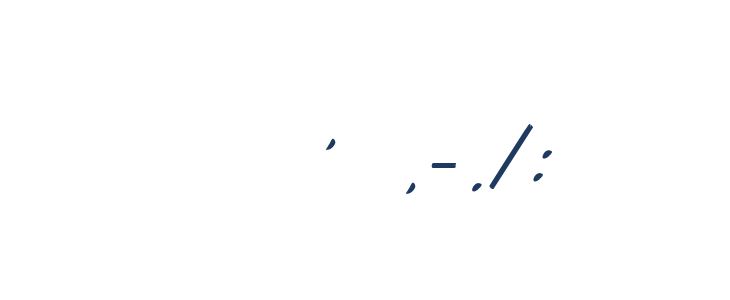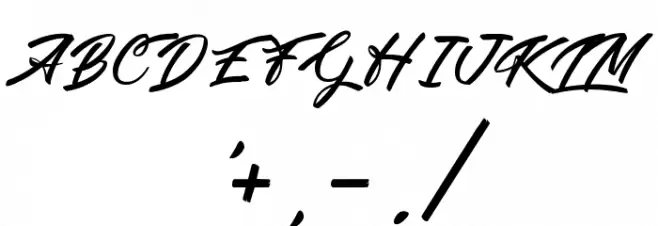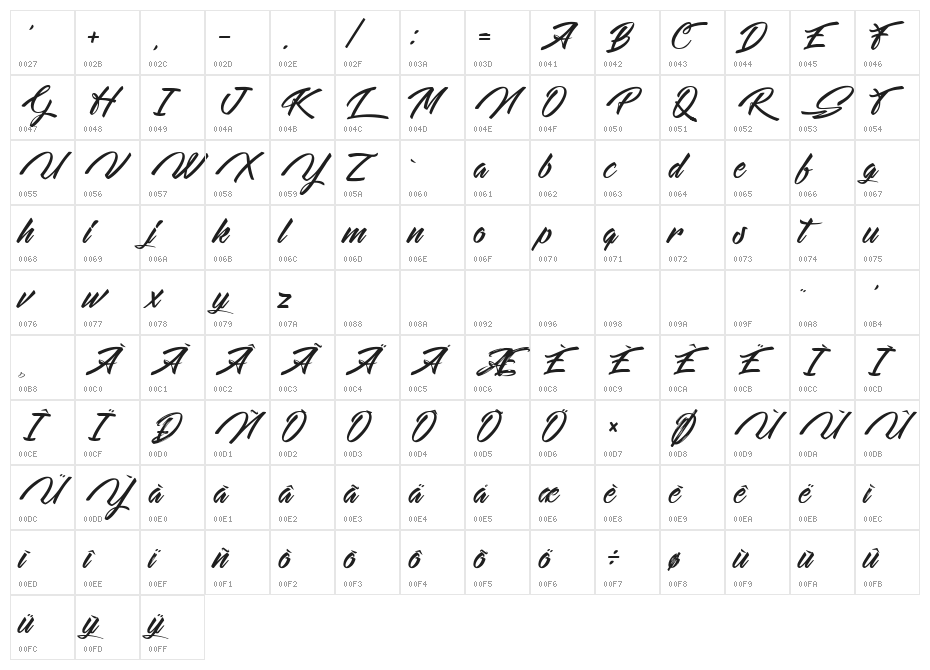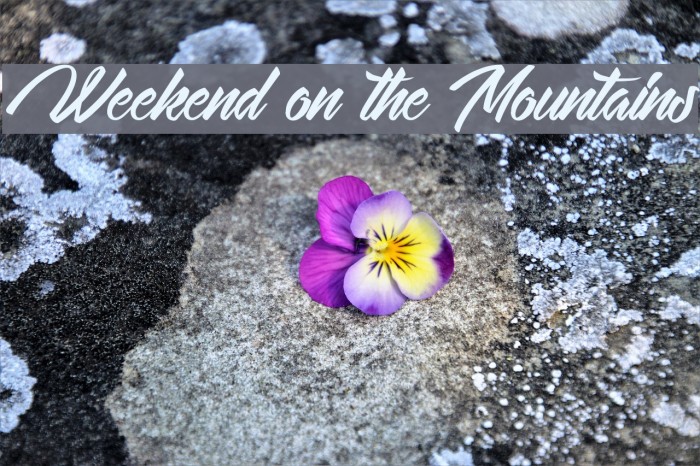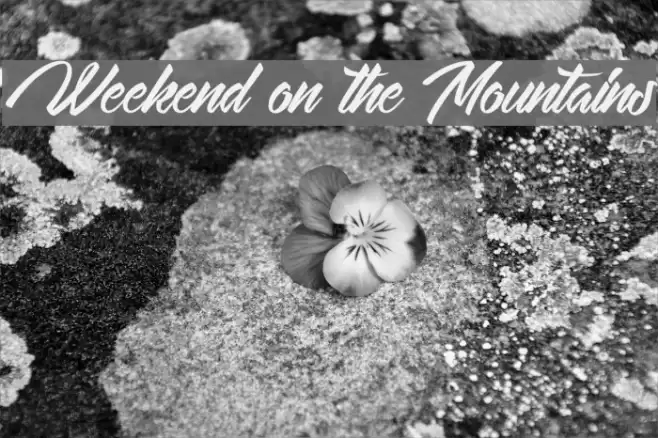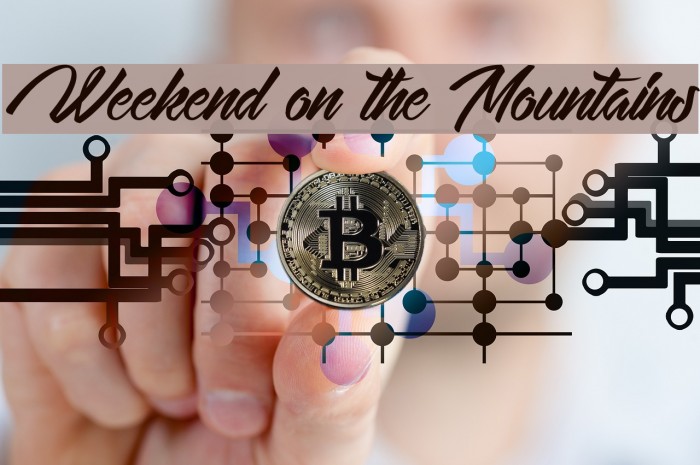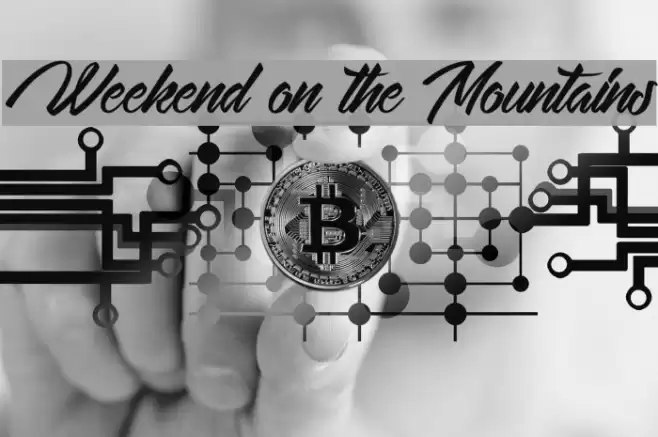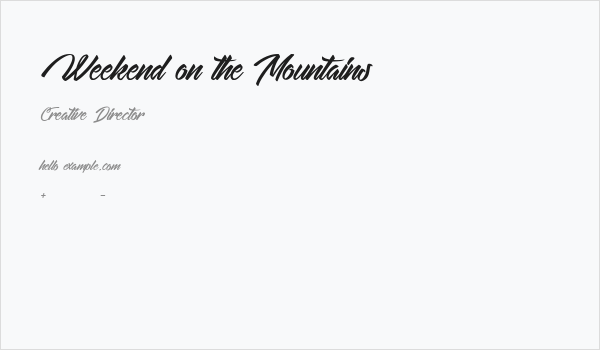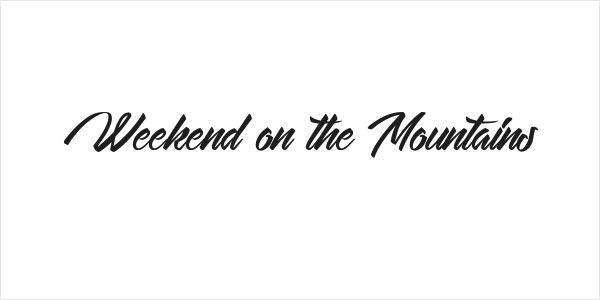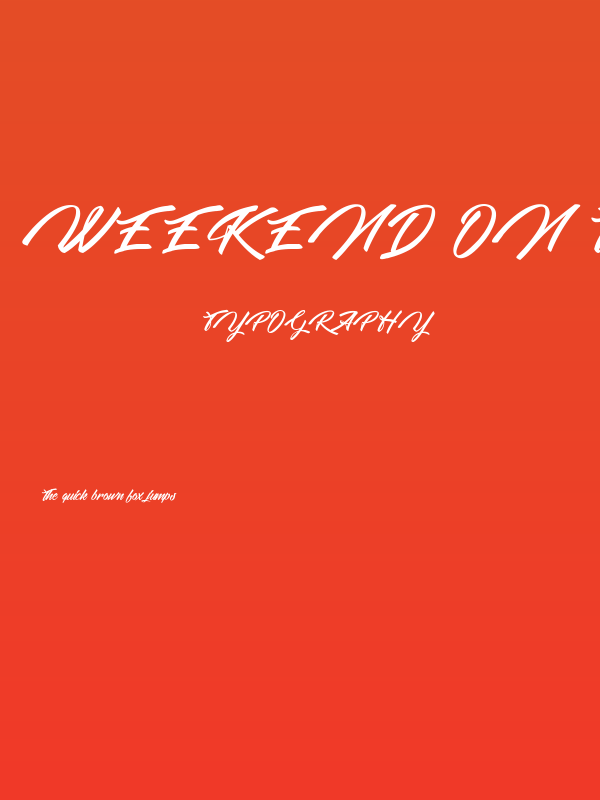
Weekend on the Mountains Font
Weekend on the Mountains Description
This font features a dynamic and expressive script style, characterized by its fluid and cursive letterforms. The strokes are bold and sweeping, giving a sense of movement and energy. Each character is distinct, with elegant loops and flourishes that add a touch of sophistication. The uppercase letters are particularly striking, with their dramatic curves and extended lines, while the lowercase letters maintain a consistent flow. The font's overall appearance is both modern and artistic, making it suitable for creative and eye-catching designs.